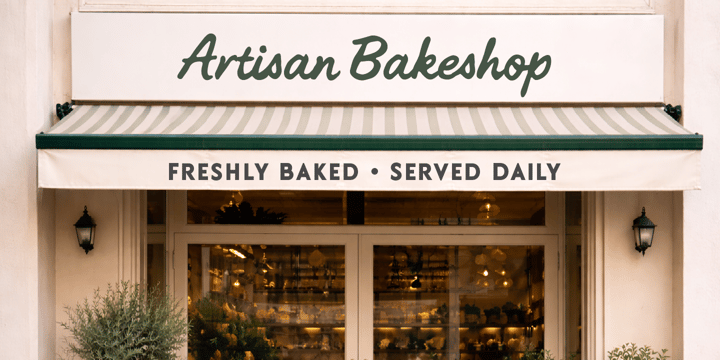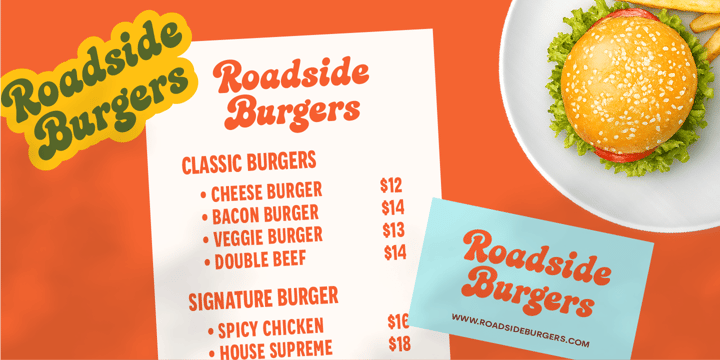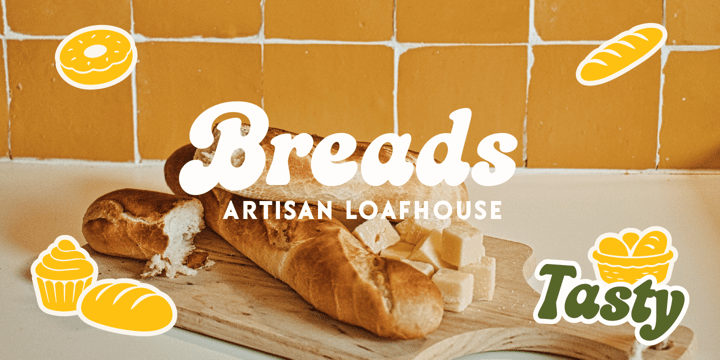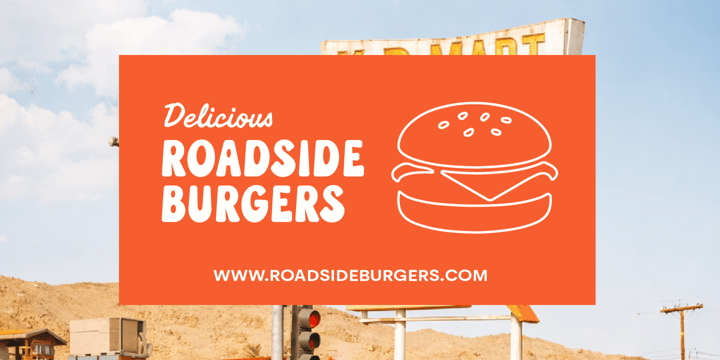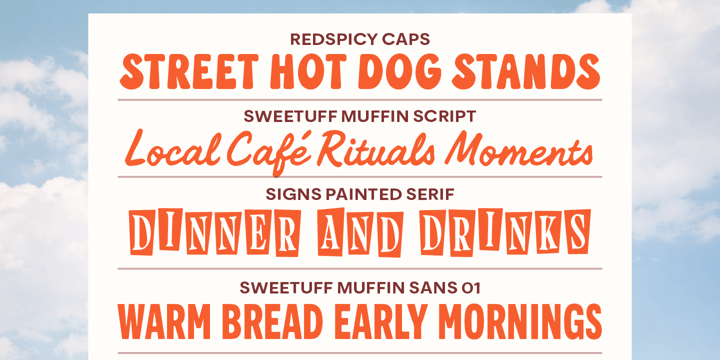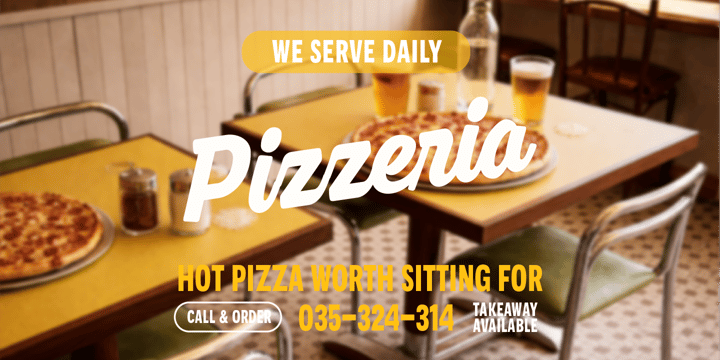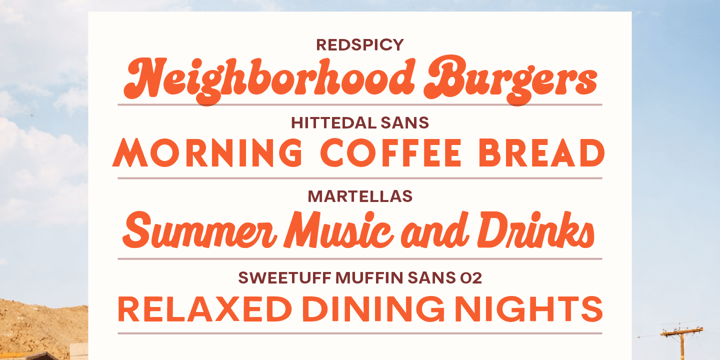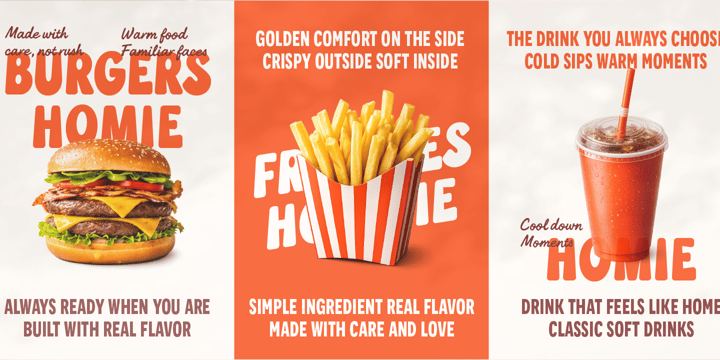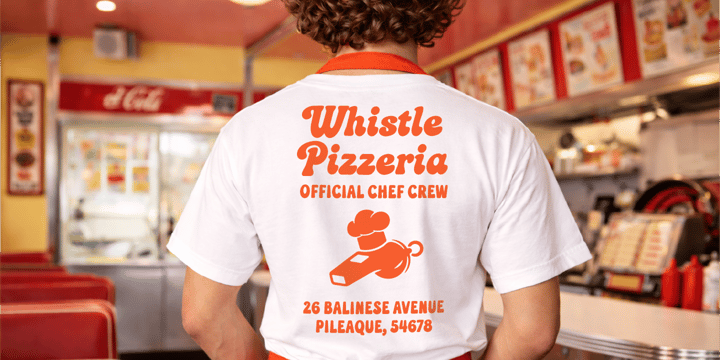
Retro Food Branding Font Bundle
Retro Food Branding Font Bundle is a premium, hand-curated collection of expressive display typefaces built to elevate retro food branding at a professional level. Created for visual branding designers who want bold character, nostalgic warmth, and instant visual appetite, this bundle is made to power standout identities for restaurants, cafés, bakeries, food packaging, menus, signage, and apparel—without searching across multiple font families.
Carefully selected from Edignwn Type’s display library, this bundle combines expressive scripts, chunky serifs, and friendly sans styles that capture the charm of homemade comfort food and food culture. Each typeface brings its own personality while staying cohesive as a complete branding system.
This bundle includes 8 premium typefaces:
Redspicy
Redspicy Caps
Sweetuff Muffin Script
Sweetuff Muffin Sans 01
Sweetuff Muffin Sans 02
Signs Painted Serif
Hittedal Sans
Martellas
8 curated display typefaces
Mix of script, serif, and sans styles
Some fonts include uppercase, lowercase, alternates, ligatures, symbols, and punctuation
Some fonts include all-caps, numerals, symbols, and punctuation